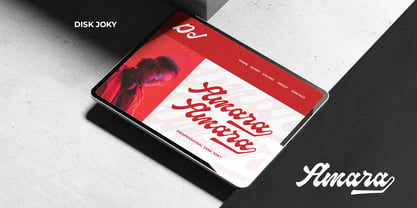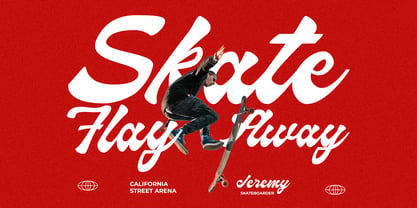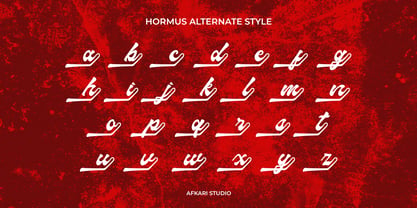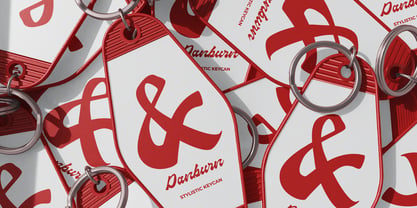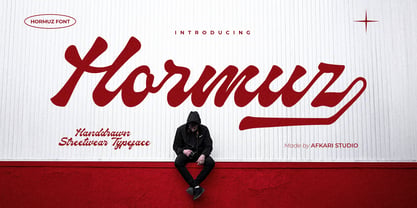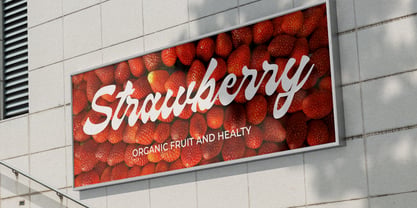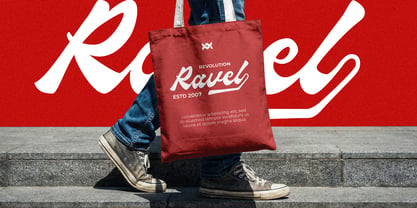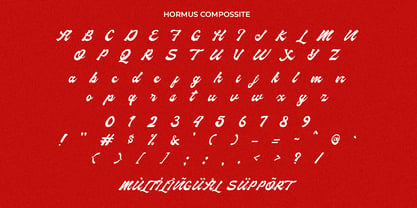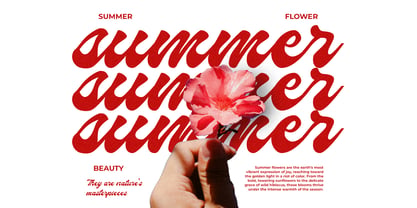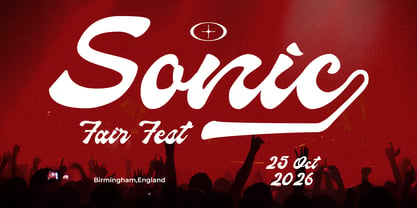
Hormuz
Hormuz is a bold script handwritten streetwear font crafted to deliver strong attitude and urban energy into your designs. Inspired by street culture, graffiti aesthetics, and modern fashion branding, this font features thick strokes, dynamic curves, and expressive letterforms that instantly grab attention.
Designed for creators who want to make a statement, Hormuz combines the fluidity of handwritten script with the boldness of street-style typography. Its powerful presence makes it perfect for standout visuals that need personality, confidence, and edge.
Whether you're designing for fashion brands, streetwear labels, music artwork, or social media content, Hormuz brings a raw and stylish vibe that resonates with modern urban audiences. It’s the perfect choice for projects that demand bold expression and visual impact.
Features;
- Uppercase, Lowercase, Number, and Punctuation
- Special Alternates and ligatures
- Mültîlíñgúãl Sùppört for; ä ö ü Ä Ö Ü ß ¿ ¡
Make a bold statement with Hormuz—a powerful handwritten streetwear font designed to elevate your branding and creative projects. Start creating eye-catching designs that stand out and leave a lasting impression.